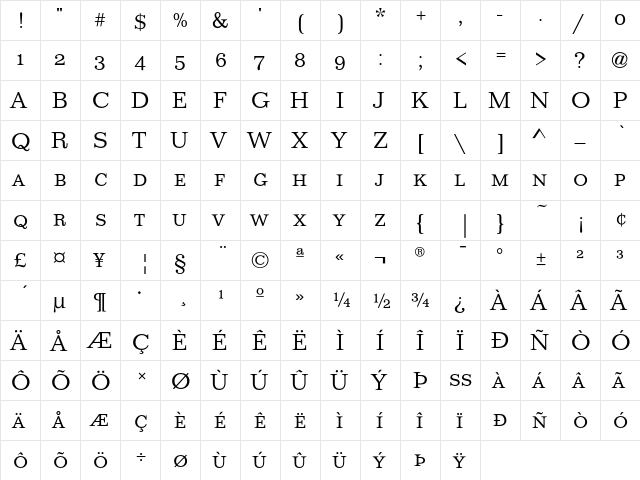
ImpressumSCEF Light
Design Context for ImpressumSCEF Typeface
ImpressumSCEF takes a measured approach to typography — its balanced proportions and neutral character make it a reliable workhorse for both digital and print work. The delicate stroke weight brings airiness and refinement to layouts.